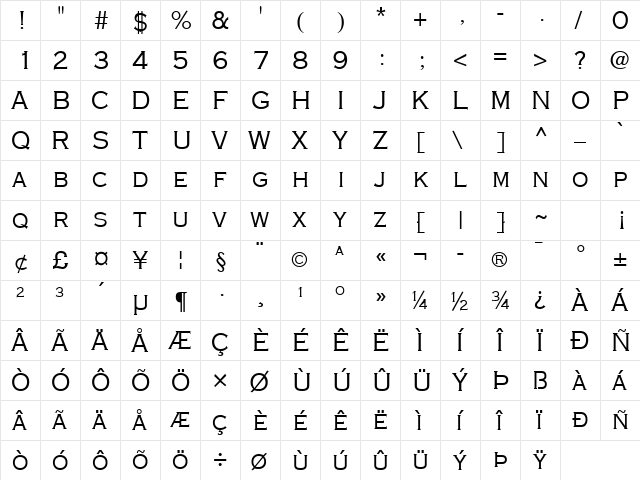
Metalcut Light Regular
Design Context for Metalcut Light Typeface
Metalcut Light takes a measured approach to typography — its balanced proportions and neutral character make it a reliable workhorse for both digital and print work. The delicate stroke weight brings airiness and refinement to layouts.